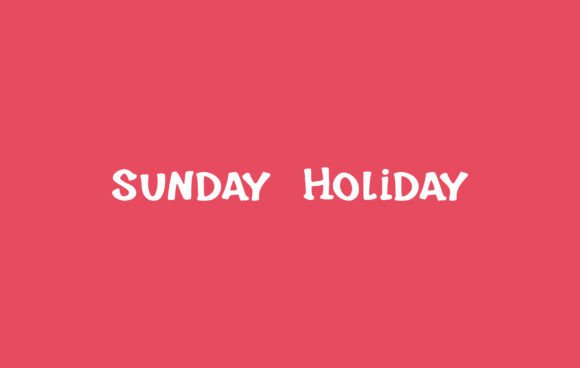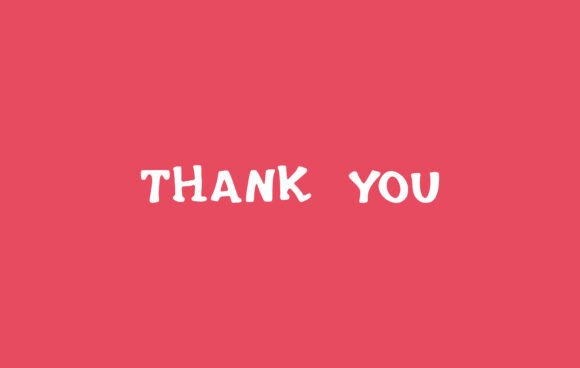
The Francis Font: A Romantic Handwritten Delight for Creatives
Have you ever been in the middle of a design project, pouring your heart and soul into it, only to get stuck on one thing: the font? I recall a particularly frustrating experience when I was working on a wedding invitation design. My client wanted something elegant, yet playful, and I just couldn’t seem to find the perfect fit. That’s when I stumbled upon the Francis font, and it instantly became my go-to. In this article, I’ll share my experience with this beautiful font, its features, and how you can make the most of it in your designs.
An Honest Review of Francis Font
- ✨ Romantic and elegant feel: The Francis font has a unique, handwritten charm that adds a touch of sophistication to any design.
- ✅ Legibility: Despite its elegant appearance, the font remains highly legible, making it perfect for both title and body text.
- 💡 Versatility: From magazine headlines to social media posts, wedding invitations, and more, Francis font can elevate a wide range of designs.
While the Francis font is exceptional, there are a few minor considerations to keep in mind:
- 🤔 Limited use of all-caps: While the font does offer all-caps letters, it might not be as visually appealing as its lowercase counterparts. Consider using it sparingly for emphasis.
- ⚠️ Glyph limitations: As with many handwritten fonts, the variety of glyphs and special characters might be limited. Always review the font pack to ensure it meets your project’s needs.
The Story Behind Francis Font
While the origins of Francis font might not be well-documented, it’s clear that the designer aimed to create a font that exudes warmth, romance, and elegance. Imagine a designer, inspired by vintage love letters and elegant wedding invitations, sitting down to craft a font that captures the essence of these timeless pieces. The result is Francis font – a typeface that feels both personal and sophisticated.
Q: Is Francis font suitable for body text?
A: Absolutely! Francis font is designed to be legible and can work beautifully for body text, especially in designs where you want to add a personal touch.
Q: Does Francis font support multiple languages?
A: The level of language support can vary, but most modern fonts, including Francis, offer a range of characters that support multiple languages. Check the font documentation for specific details.
Q: How do I access stylistic alternates in Francis font?